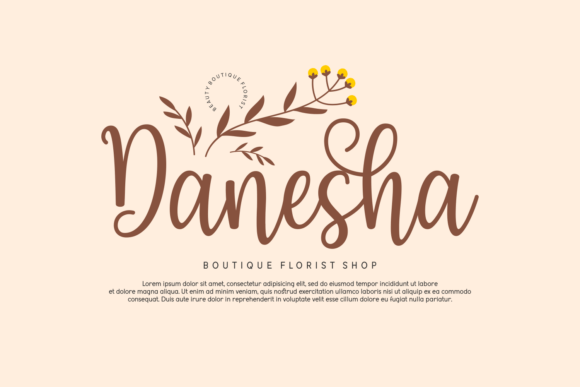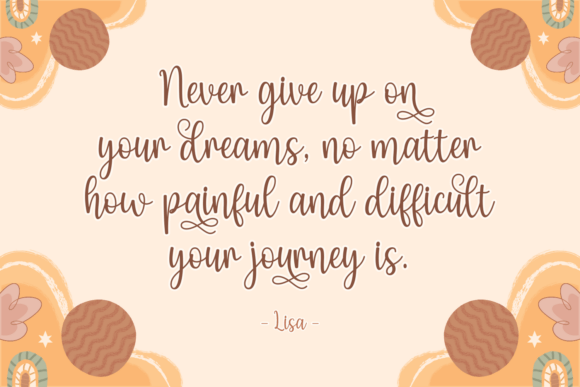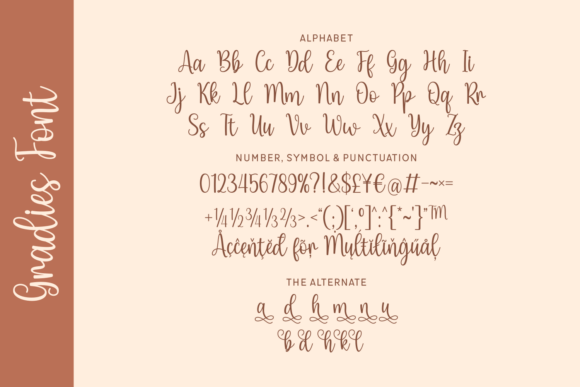
Introducing Gradies Font: The Perfect Addition to Your Creative Projects
Are you a designer, crafter, or DIY enthusiast looking for a font that can add a touch of warmth and personality to your projects? Look no further than Gradies Font, a charming and playful script font that’s perfect for invitations, greeting cards, and personal projects. In this article, we’ll take a closer look at Gradies Font, its features, and how you can use it to elevate your creative endeavors.
What is Gradies Font?
Gradies Font is a beautiful script font that features smooth, flowing letters that give off a friendly and inviting feel. Its unique design makes it easy to read and looks great in any size, making it perfect for a variety of applications. Whether you’re creating invitations, greeting cards, or personal projects, Gradies Font is sure to add a touch of warmth and personality to your work.
Key Features of Gradies Font
- Playful and Charming Design: Gradies Font features a playful and charming design that’s perfect for adding a touch of personality to your projects.
- Smooth and Flowing Letters: The font’s smooth and flowing letters give off a friendly and inviting feel that’s sure to capture the attention of your audience.
- Ease of Readability: Gradies Font is easy to read, making it perfect for use in a variety of applications, from invitations and greeting cards to personal projects and more.
- Scalability: The font looks great in any size, making it perfect for use in a variety of applications, from small greeting cards to large billboards.
Uses of Gradies Font
Gradies Font is a versatile font that can be used in a variety of applications, including:
- Invitations: Add a touch of warmth and personality to your invitations with Gradies Font.
- Greeting Cards: Create beautiful and unique greeting cards with Gradies Font.
- Personal Projects: Use Gradies Font to add a touch of personality to your personal projects, such as scrapbooking, journaling, and more.
- Digital Marketing: Use Gradies Font in your digital marketing materials, such as social media graphics, email headers, and more.
Tips for Using Gradies Font
Here are a few tips for using Gradies Font in your projects:
- Pair with Other Fonts: Gradies Font pairs well with other fonts, such as sans-serif fonts, to create a unique and visually appealing design.
- Experiment with Colors: Gradies Font looks great in a variety of colors, so don’t be afraid to experiment and find the perfect color for your project.
- Use in Combination with Images: Use Gradies Font in combination with images to create a visually appealing design that’s sure to capture the attention of your audience.
Gradies Font is a charming and playful script font that’s perfect for adding a touch of warmth and personality to your projects. With its smooth and flowing letters, ease of readability, and scalability, Gradies Font is sure to become a favorite in your font collection. Whether you’re a designer, crafter, or DIY enthusiast, Gradies Font is a great addition to your creative toolkit.
- What is Gradies Font?: Gradies Font is a charming and playful script font that features smooth, flowing letters.
- Is Gradies Font easy to read?: Yes, Gradies Font is easy to read and looks great in any size.
Overall, Gradies Font is a great choice for anyone looking to add a touch of warmth and personality to their projects. With its unique design and versatility, Gradies Font is sure to become a favorite in your font collection.